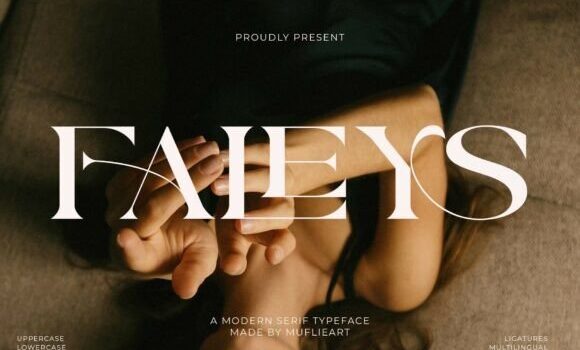
faleys
Faleys Font – Free Download Introduction to Faleys Font Command attention with the architectural grace of Faleys, a modern serif typeface. 📸 Preview Gallery 6 images 📌 Product Name Faleys Font 👤 Author Muflieart 📂 Category Explore ⬇️ Download Faleys